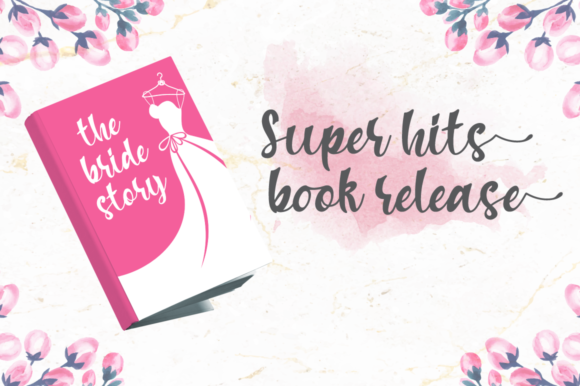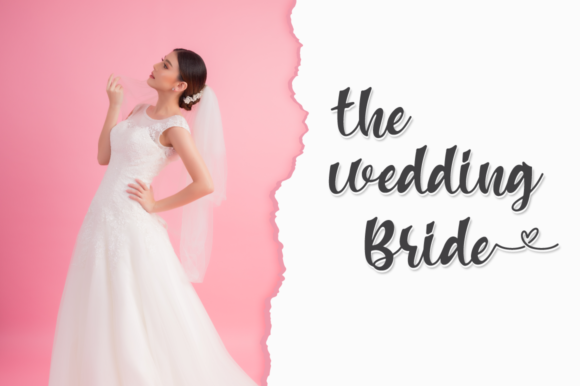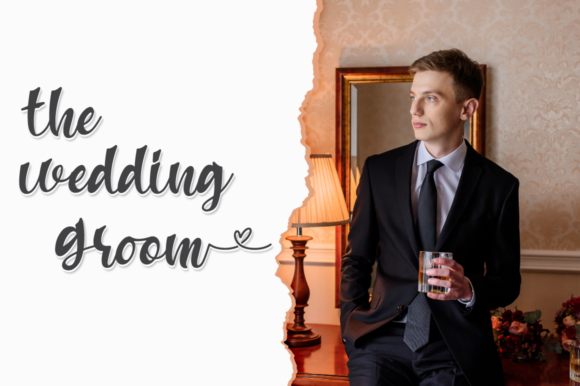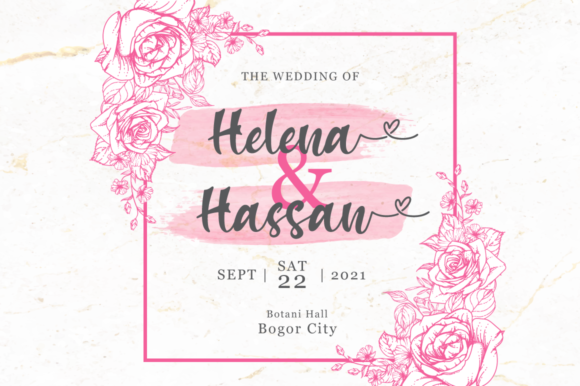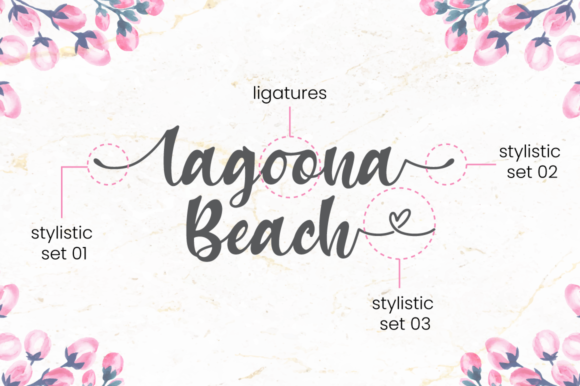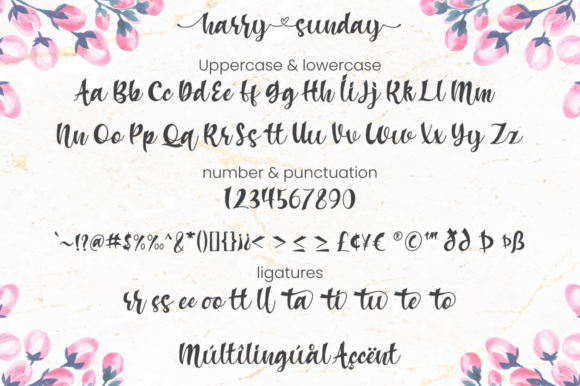
Introducing Harry Sunday Font: Elevate Your Designs with Elegant Handwritten Script
In the world of typography, few fonts manage to capture the essence of elegance and beauty as effectively as the Harry Sunday Font. This stunning handwritten script font has been making waves in the design community, and for good reason. Its unique blend of sophistication and personal touch makes it the perfect choice for a wide range of design projects, from wedding invitations and thank you cards to logos, business cards, and more.
The Characteristics of Harry Sunday Font
So, what sets Harry Sunday Font apart from other fonts in its class? For starters, its handwritten script style gives it a distinctly personal and intimate feel. The elegant strokes and beautiful letterforms evoke a sense of luxury and refinement, making it perfect for designs that require a touch of sophistication.
One of the key features of Harry Sunday Font is its versatility. Whether you’re looking to create a romantic wedding invitation or a professional business card, this font adapts seamlessly to any design style. Its flowing script and delicate lines make it easy to read, while its unique character ensures that your design stands out from the crowd.
Uses of Harry Sunday Font
Harry Sunday Font is incredibly versatile, and its uses are limited only by your imagination. Here are just a few ideas to get you started:
- Wedding Invitations: Add a touch of romance and elegance to your wedding invitations with Harry Sunday Font. Its beautiful script and delicate lines make it perfect for formal and informal wedding designs alike.
- Thank You Cards: Express your gratitude in style with Harry Sunday Font. Its personal and intimate feel makes it perfect for thank you cards, gift tags, and other correspondence.
- Quotes and Posters: Add a touch of sophistication to your quotes and posters with Harry Sunday Font. Its elegant strokes and beautiful letterforms make it perfect for designs that require a touch of luxury.
- Greeting Cards: Create stunning greeting cards for any occasion with Harry Sunday Font. Its versatility and elegance make it perfect for birthdays, holidays, and more.
- Logos and Business Cards: Take your branding to the next level with Harry Sunday Font. Its unique character and sophisticated style make it perfect for logos, business cards, and other marketing materials.
Why Designers and Crafters Love Harry Sunday Font
So, why have designers and crafters fallen in love with Harry Sunday Font? For one, its unique blend of elegance and personality makes it a standout in any design. Its versatility and adaptability also make it a favorite among designers, who appreciate the ability to use it in a wide range of projects.
In addition, Harry Sunday Font is incredibly easy to use. Its clear and legible letterforms make it easy to read, even at small sizes. This makes it perfect for designs that require a lot of text, such as wedding invitations and business cards.
Tips for Using Harry Sunday Font
To get the most out of Harry Sunday Font, here are a few tips to keep in mind:
- Pair it with a simple font: Harry Sunday Font is elegant and sophisticated, so it’s best to pair it with a simple font that won’t compete with it. A clean sans-serif font works well for body text.
- Use it sparingly: While Harry Sunday Font is beautiful, it can be overwhelming if used too much. Use it sparingly to add a touch of elegance to your design.
- Experiment with colors: Harry Sunday Font looks stunning in a range of colors, from soft pastels to rich jewel tones. Experiment with different colors to find the perfect look for your design.
| Font Name | Harry Sunday Font |
| Author | attypestudio |
In conclusion, Harry Sunday Font is a stunning handwritten script font that adds a touch of elegance and sophistication to any design. Its versatility, adaptability, and unique character make it a favorite among designers and crafters, who appreciate its ability to elevate their designs to the next level. Whether you’re creating wedding invitations, thank you cards, logos, or business cards, Harry Sunday Font is the perfect choice for any design that requires a personal and elegant touch.